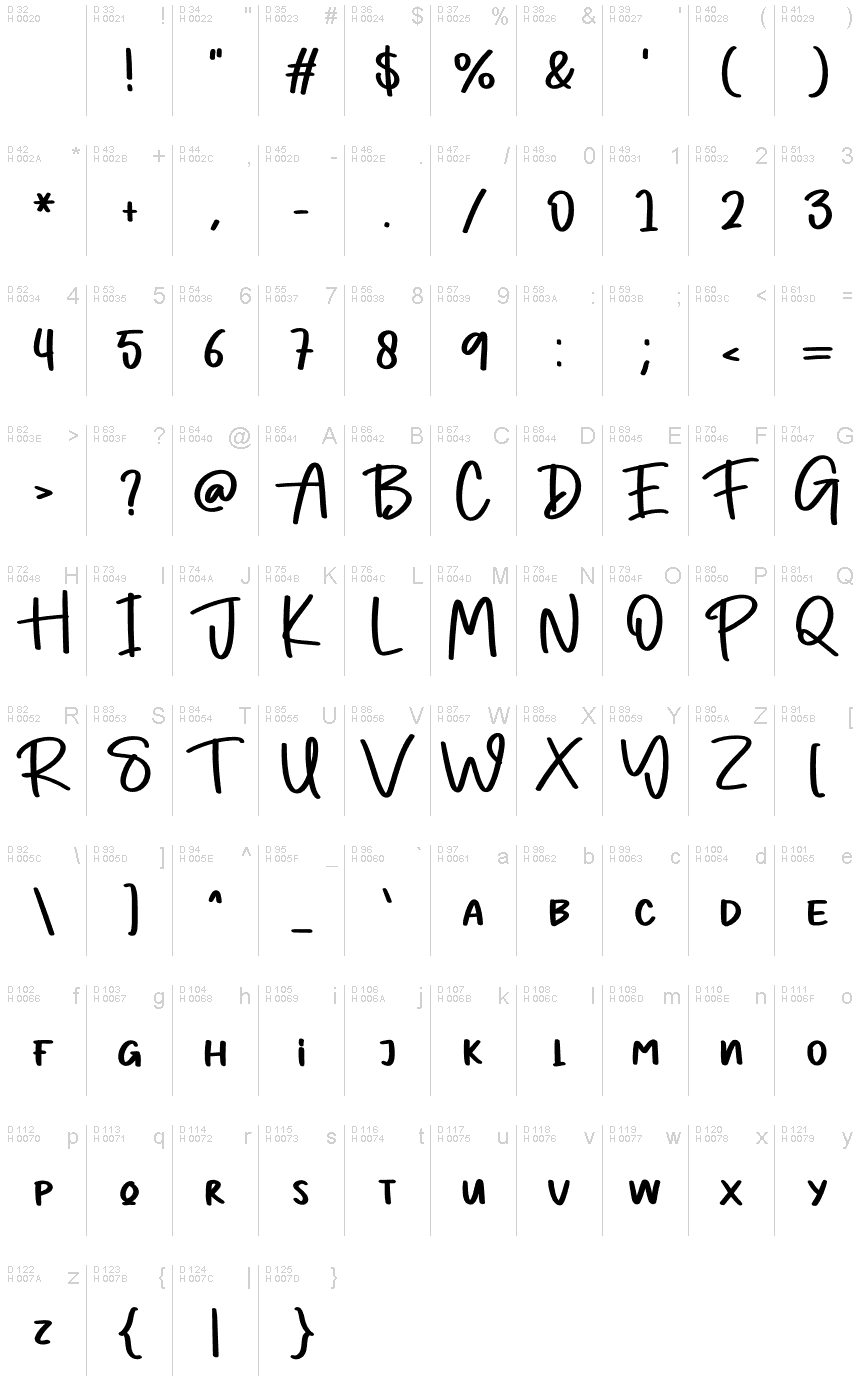
The Groovy
The Groovy, designed by Scratchones, is a playful and expressive handwritten font with a marker style. Its semi-light weight adds a touch of elegance while maintaining its casual appeal.
This lively typeface is perfect for projects that aim to evoke joy and creativity, such as children's books, greeting cards, party invitations, and art-related websites. The Groovy's unique charm will bring personality to any design, making it an excellent choice for branding materials, social media graphics, and advertisements.
Let your imagination run wild with The Groovy!